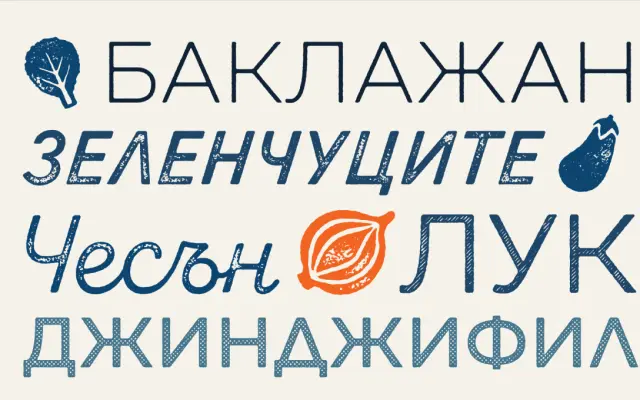
Zing Rust
A vast layered display system of 521 styles spanning serif, sans and script cuts with interchangeable grunge, halftone, diagonal and shadow layers for chromatic poster lettering.
The family splits into four sub-families: Zing Rust (serif-inflected display), Zing Sans Rust, Zing Script Rust and Zing Goodies (icon and banner elements). Each comes in multiple weights from Thin to Bold, with base layers combinable with grunge, halftone A and B, diagonal, horizontal line and shadow variants numbered one through five. The result is a toolkit aimed at vintage signage, food-and-beverage branding and retro editorial work where layered chromatic type is required.
Zing Rust is a layered display family built from interchangeable base, fill, shadow, grunge, halftone and line components, designed for chromatic and retro-craft poster lettering rather than running text.